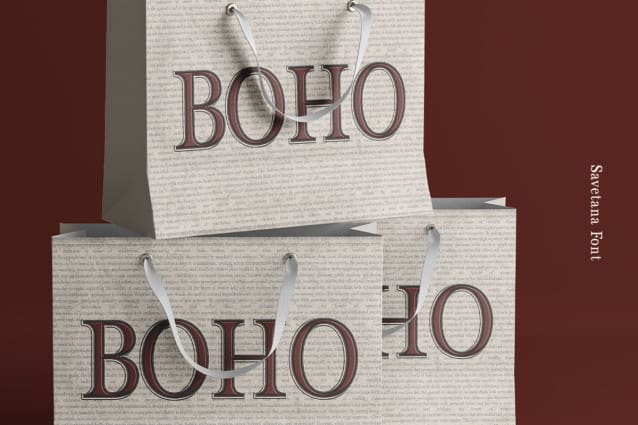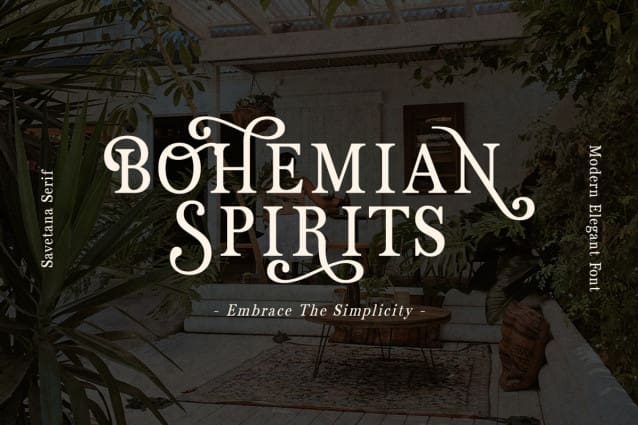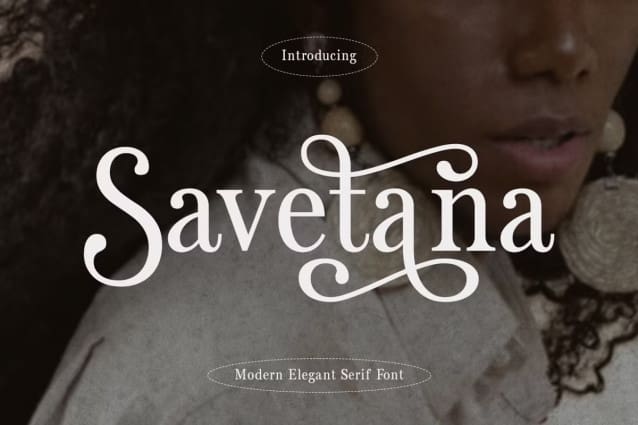
Savetana Font
Savetana Font is a typeface that blends the elegance of classic serif fonts with the unbounded creativity and free spirit of the bohemian aesthetic. Its cursive nature, delicate details, and potential for personalization make it a versatile choice for designers seeking to add a touch of sophisticated flair and artistic expression to their projects. Savetana Font boasts a variety of swash ligatures and alternates. These additions provide designers with the creative freedom to personalize their work and introduce visual intrigue. Swash ligatures, in particular, can add a touch of exuberance and drama to the text, further reflecting the bohemian spirit.